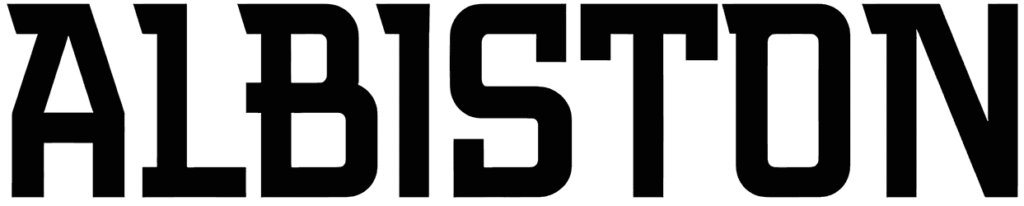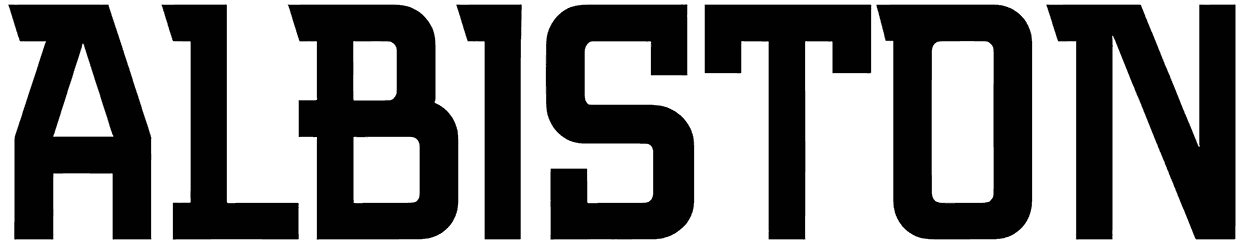
MGN Albiston Font
To take your sports design to a higher level, we offer you to test different strong letterforms like this football font. There is no offer for lowercase letters, but it can be a nice adornment for the title of your special sports event flyer. Use the MGN Albiston font as you like with your creativity and make a strong and captivating layout.